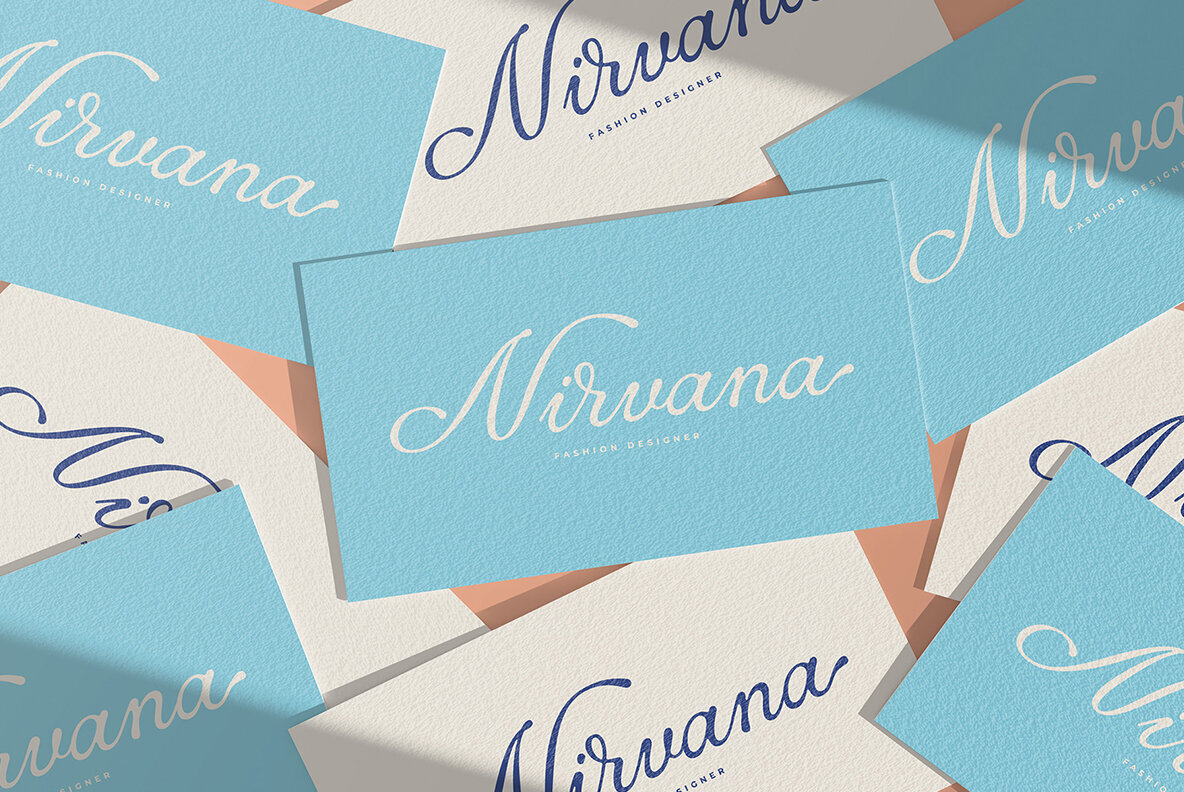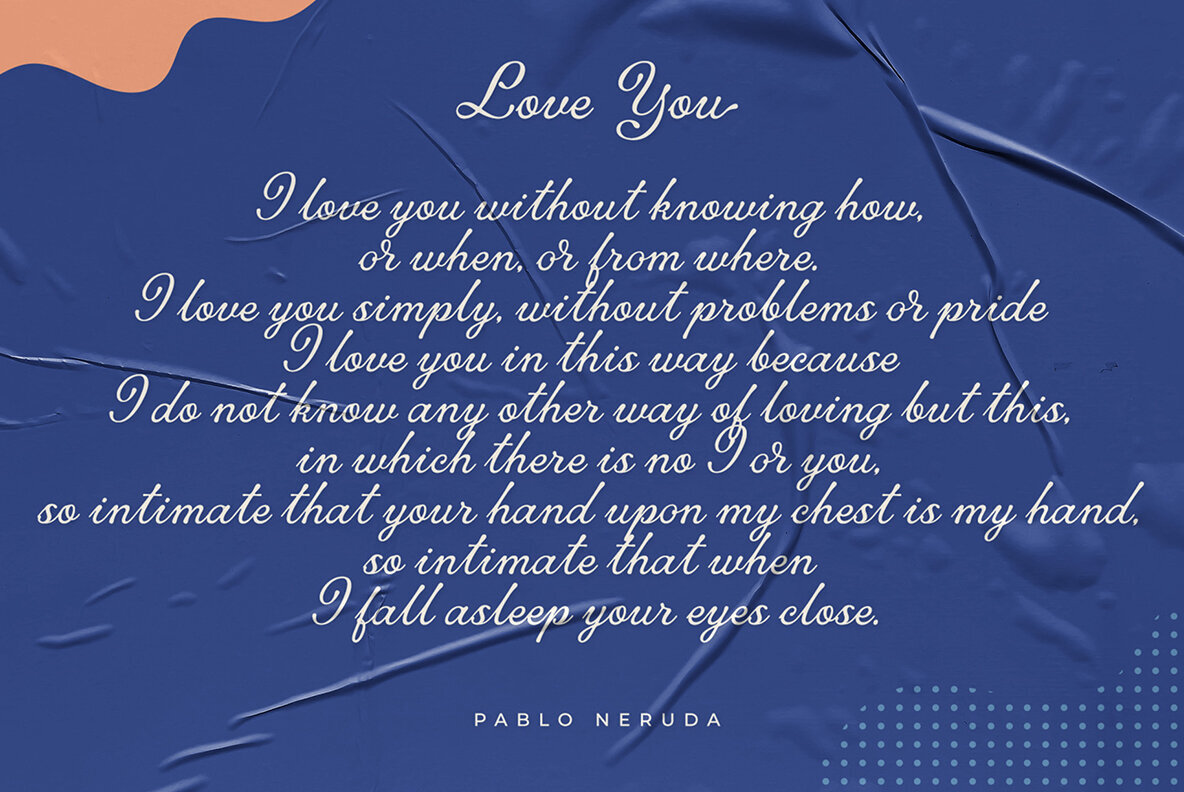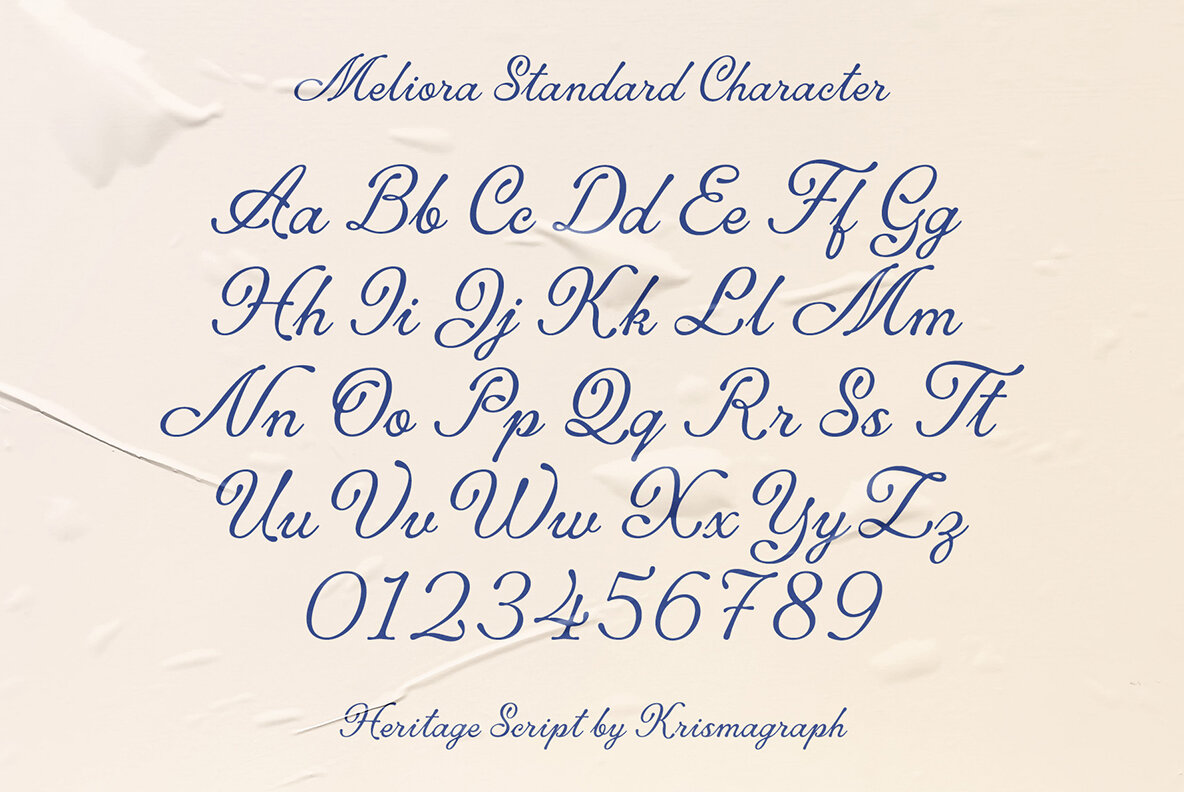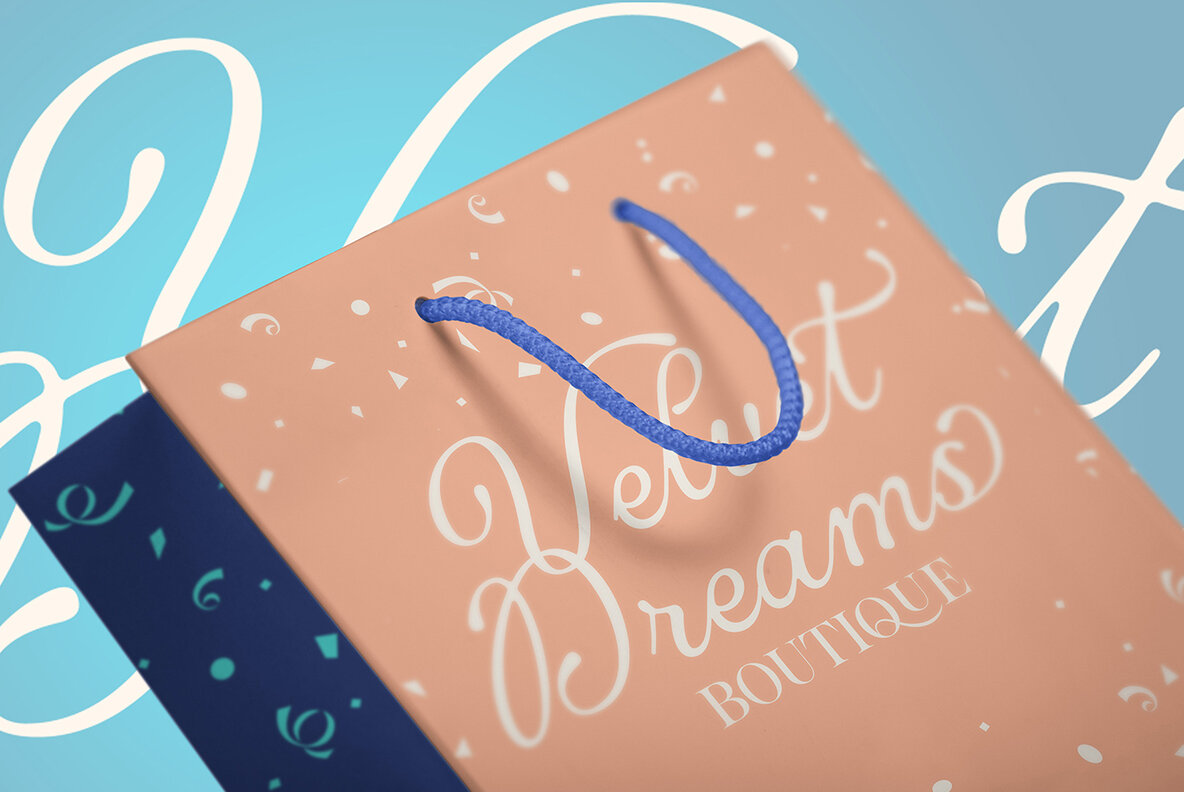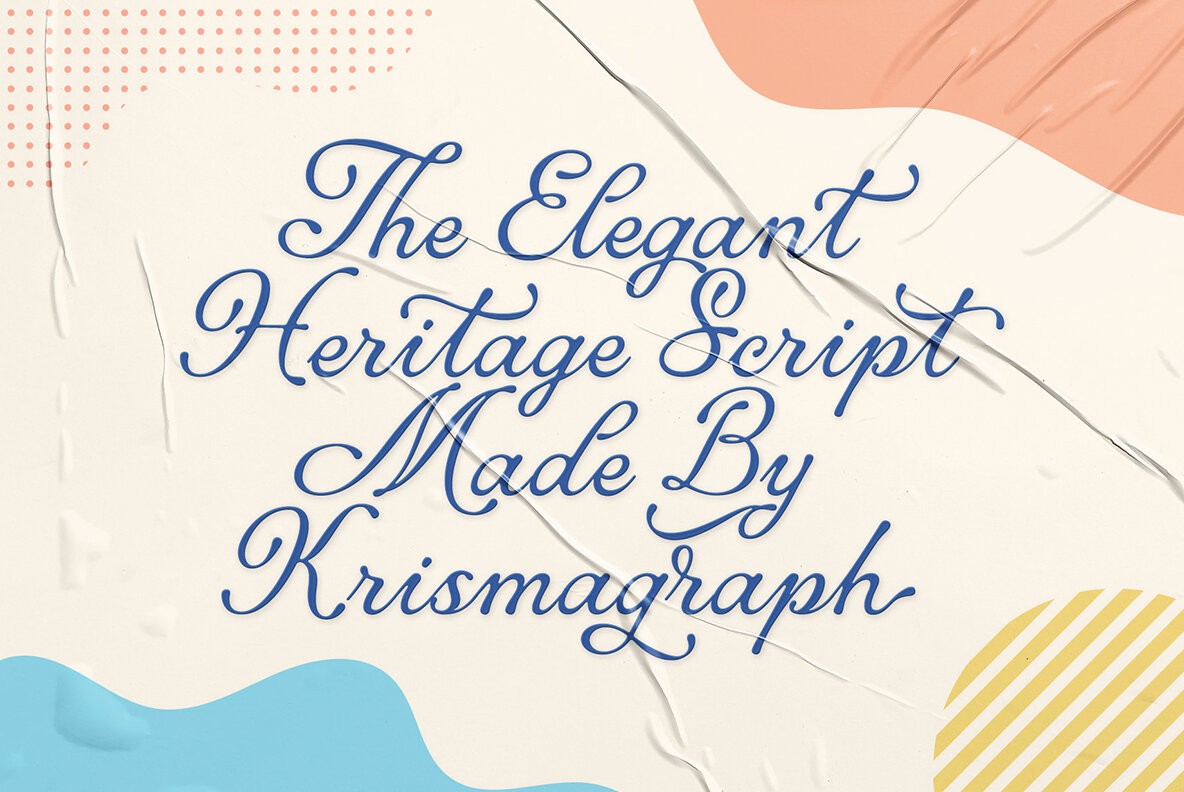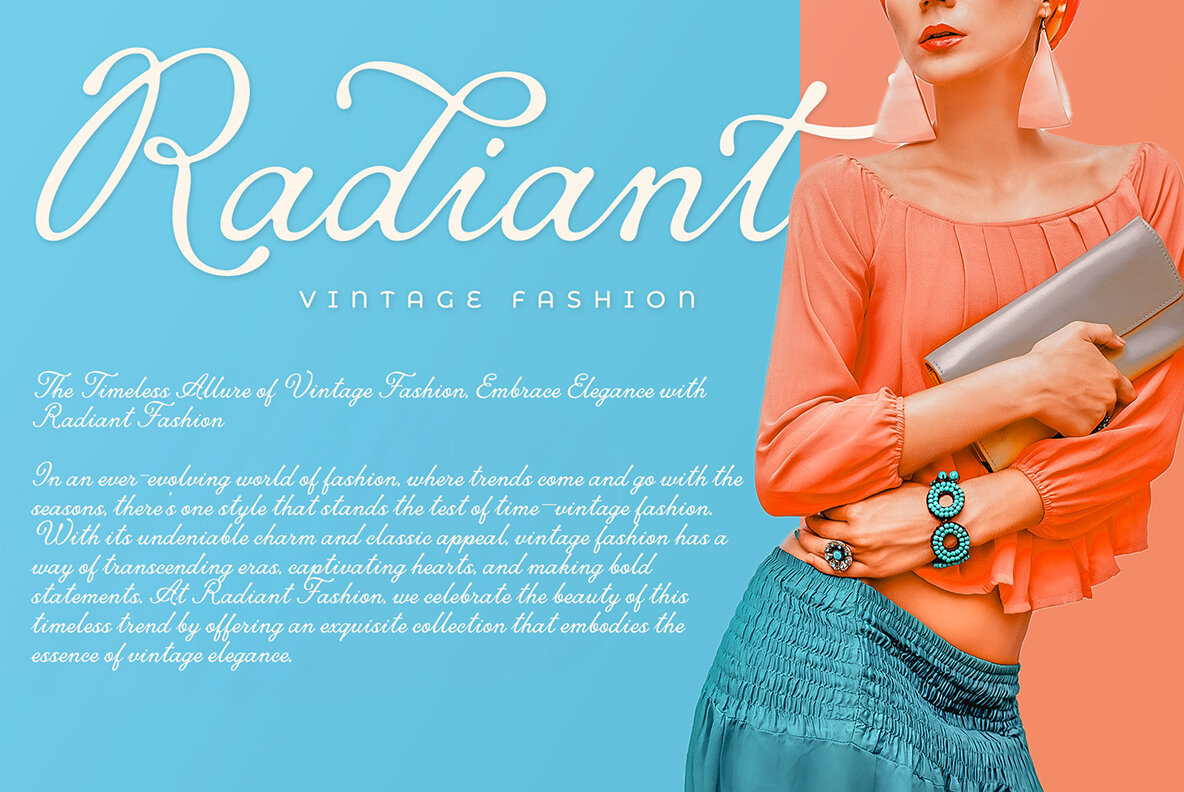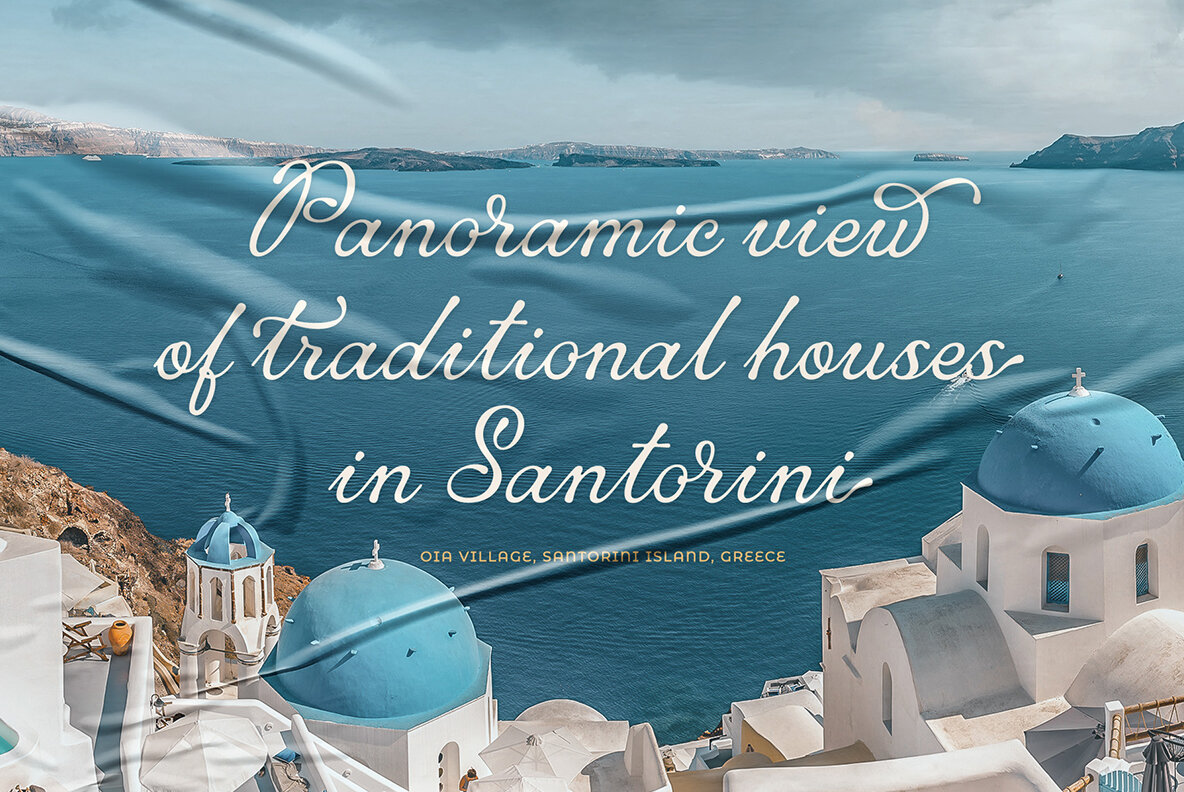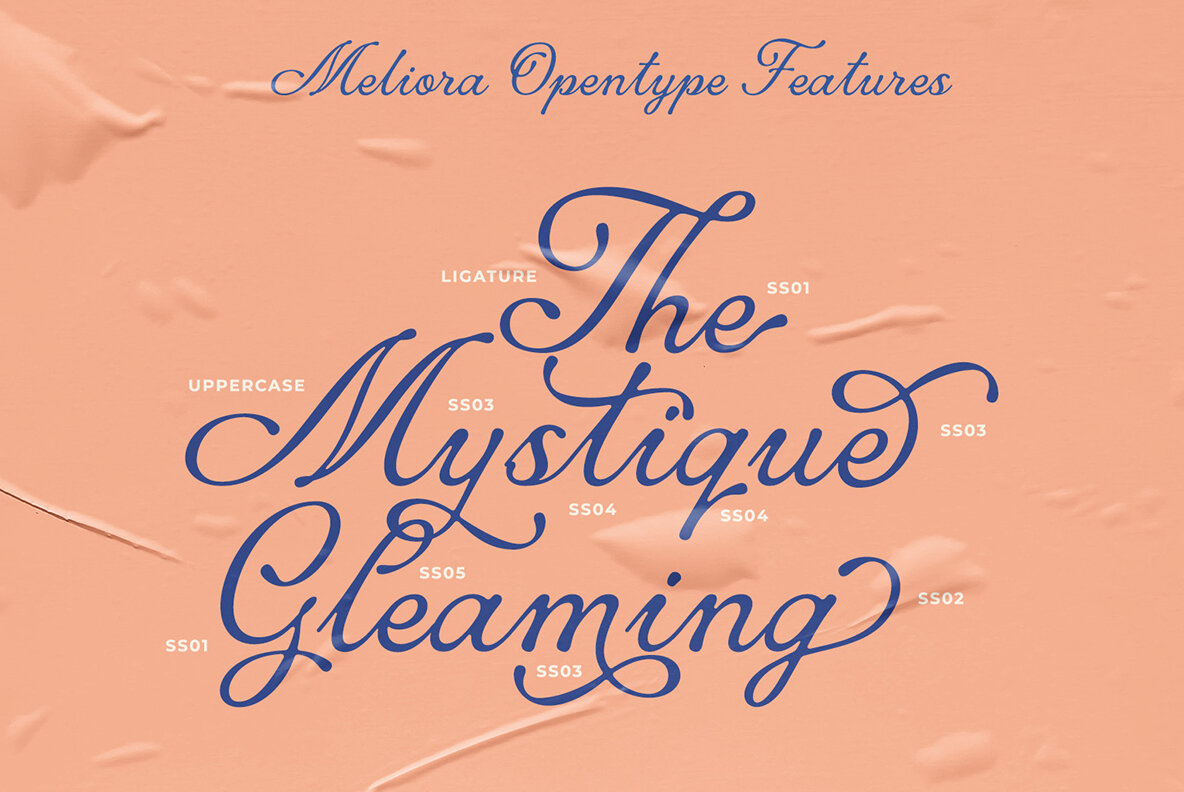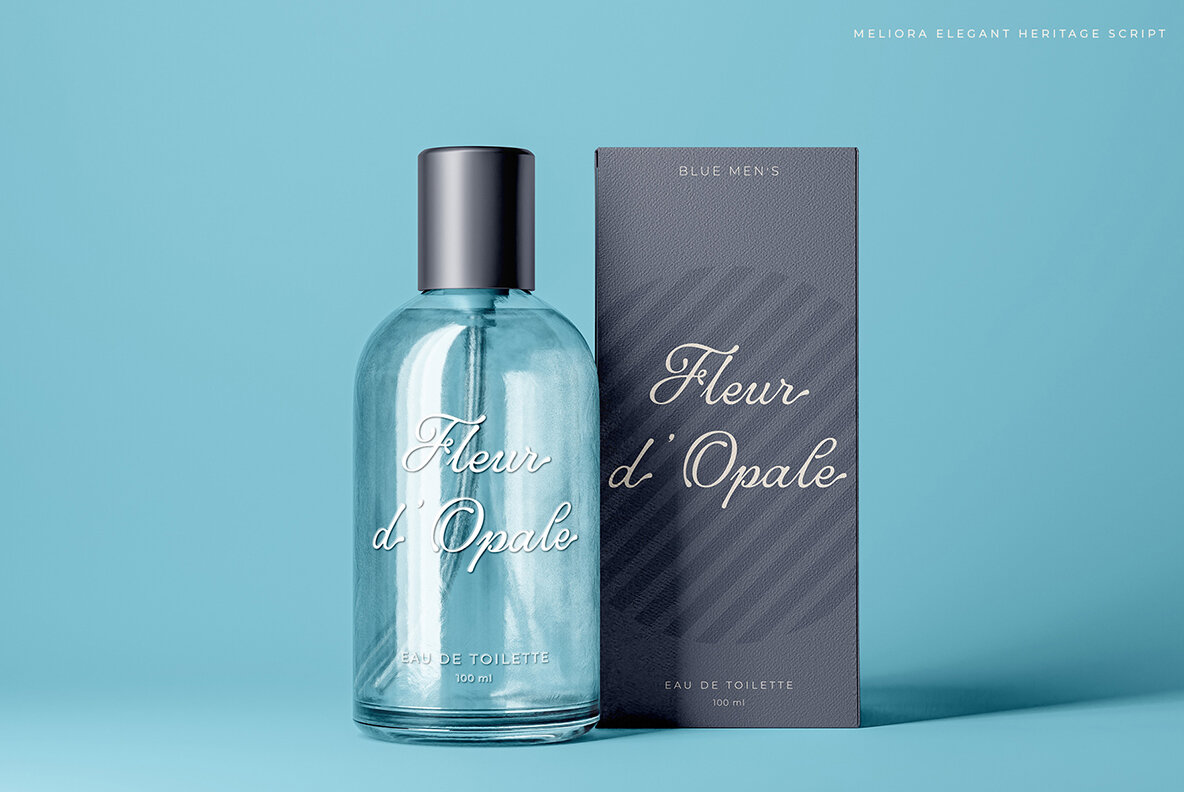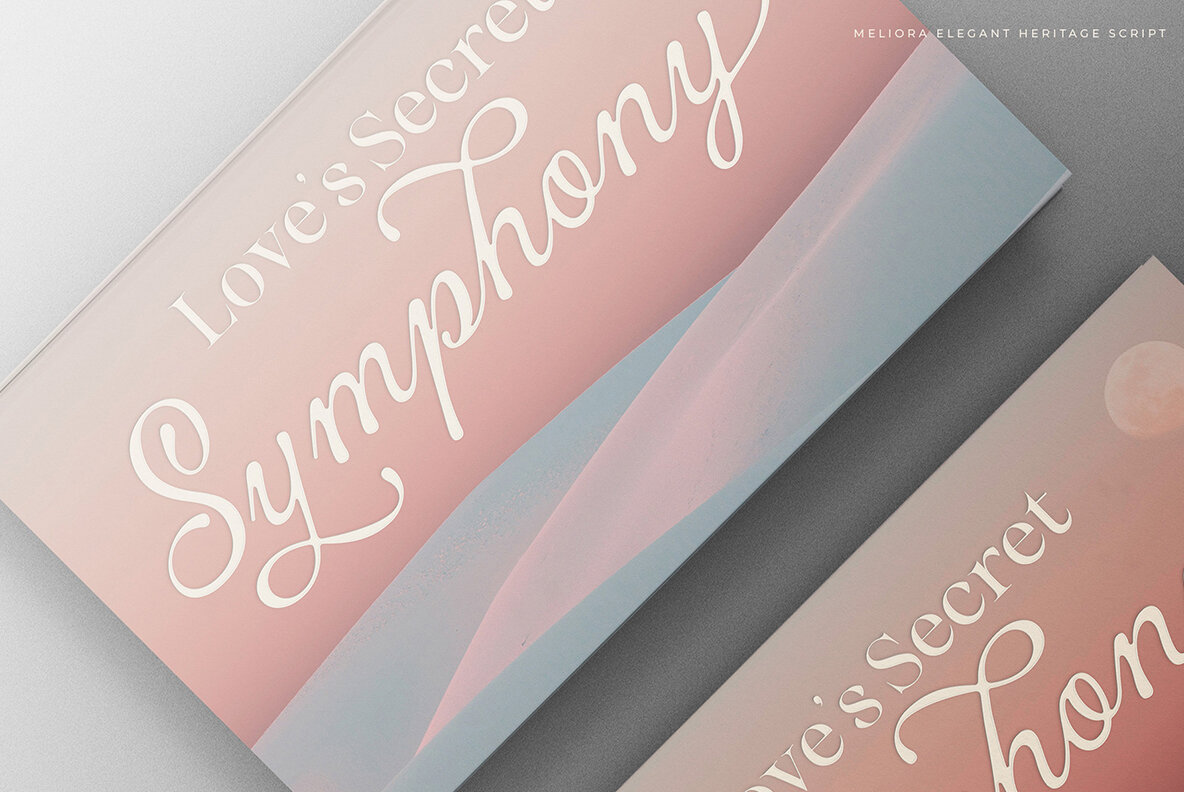
Meliora Font
Meliora Script Regular
Meliora Elegant Heritage Script is a modern classic style font inspired by the timeless beauty of handwritten texts found in classic literature. This font comes with 145 stylistic alternates, ligatures, and extensive multi-language support, enhancing its aesthetic appeal and making your projects truly captivating. This font is perfect for elevating your creative projects, including logotypes, printed quotes, invitations, cards, product packaging, headers, letterheads, apparel designs, web layouts, magazines, books, and more. It adds a touch of sophistication and timeless elegance to any design.